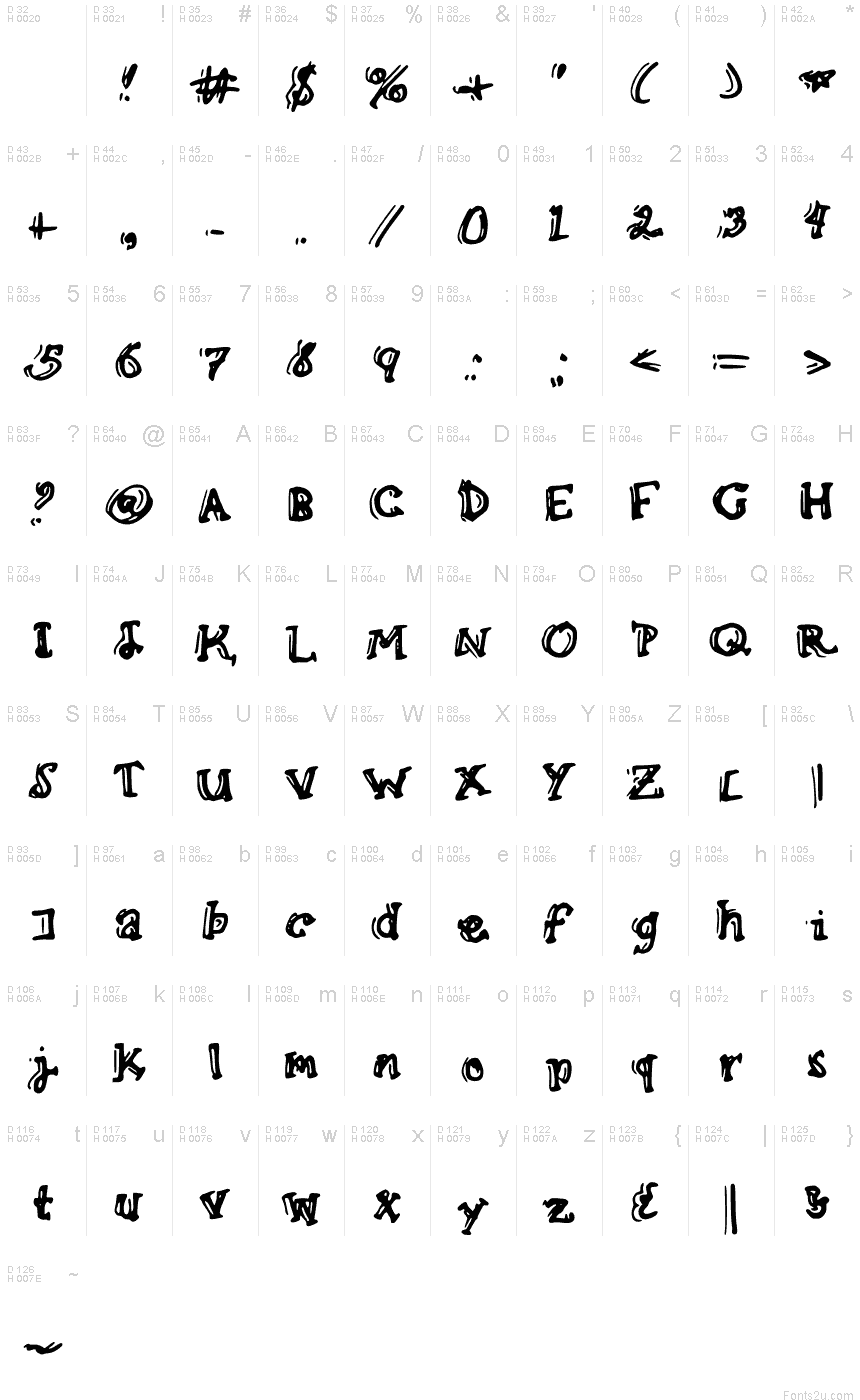
Good Time is a free distorted display font with a rubbery, hand-shaped silhouette. Its letters swing between swollen masses and hairline-thin joins, with pinched openings, warped curves, and deliberately uneven proportions that make each form seem stretched or melted.
The liquid shapes can echo psychedelic illustrations on posters and album artwork. They also suit candy packaging and offbeat event merchandise, where the exaggerated contours can become part of a playful product identity rather than sitting apart as neutral lettering, especially for youth-focused brands with a mischievous streak.